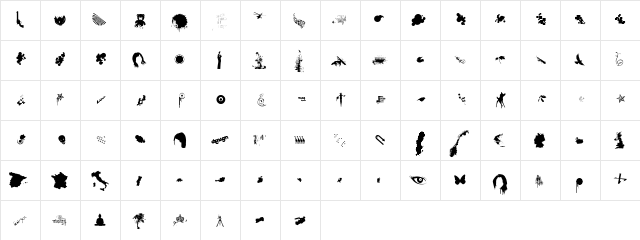
Loosydings Expert Regular
| Foundry | loosy (fabian pfeifhofer) |
| Designer | loosy (fabian pfeifhofer) |
Design Context for Loosydings Expert Typeface
Loosydings Expert is a composed and adaptable typeface that performs quietly and consistently across a wide range of design contexts.